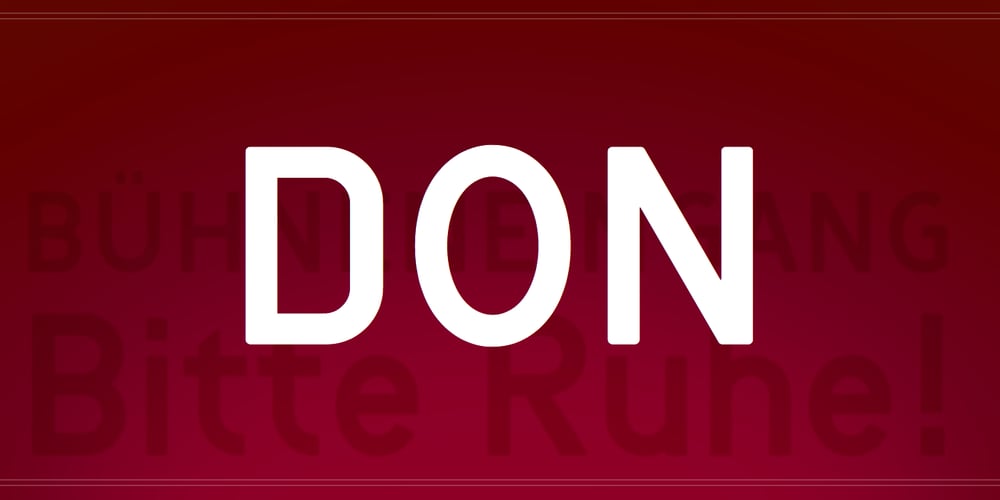
Don Sans
Don Sans Font Family was designed by Andreas Stötzner and published by SIAS. Don Sans contains 2 styles and family package options. Don Sans is a sturdy display sans which evokes the invironment of old-day industrialism, steamers, locomotives and other machinery; dusty back-yard workshops and the glamorous air of backstage life. It has been inspired by various letterings crafted by former graphic workmen who would have had an idea of simple letter construction but did not really wanted to bother with detail sophistication. Hence the result is somewhat quaint and imperfect … if that is something you are willing to enjoy. The unique charme of this typeface lies in its lack of perfection. And yet it embodies a peculiar straight-forward strength and sobriety, a visual stubbornness which is certainly not over-used! Utilize Don-Sans for stationary and ads, for crisp title settings and smart identity graphics; for menus and leaflets, business cards, cutting-edge campaign eye-catchers … whatever your imagination makes of it! Don Sans is a multilingual typeface, it supports every Euro-Latin language.